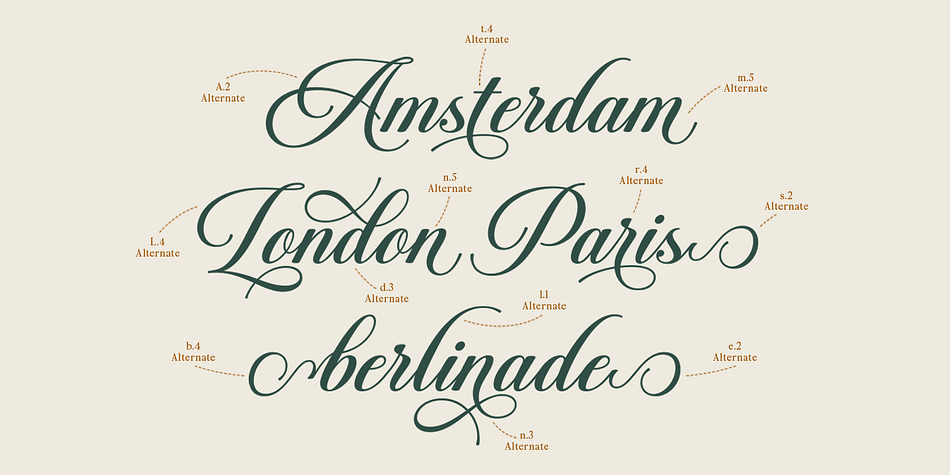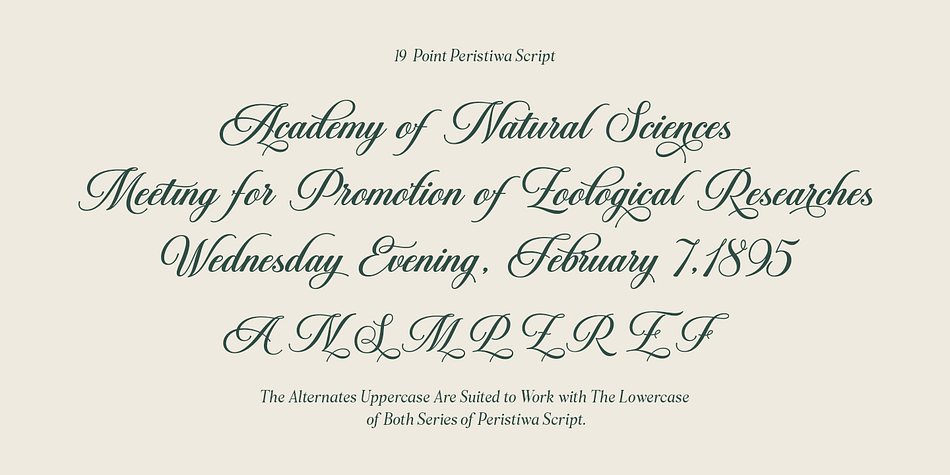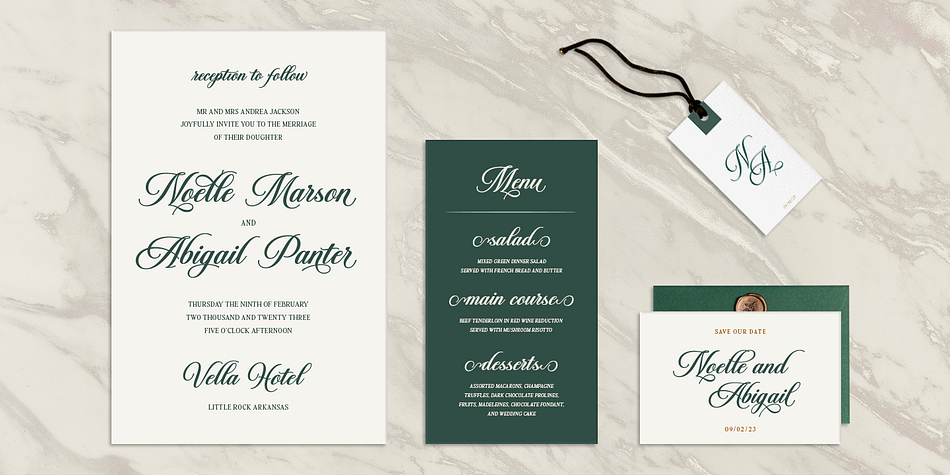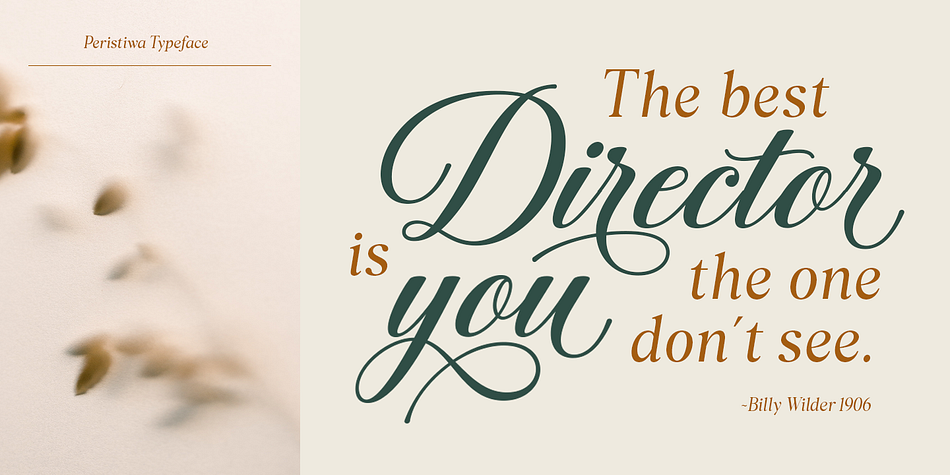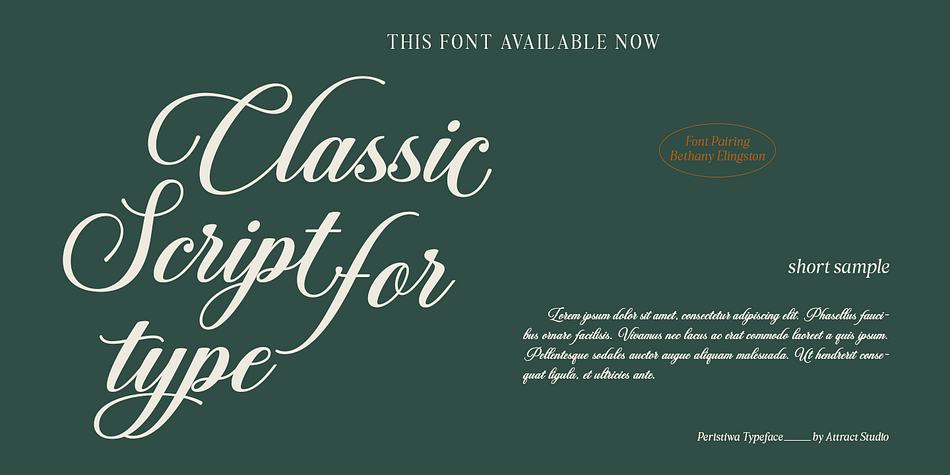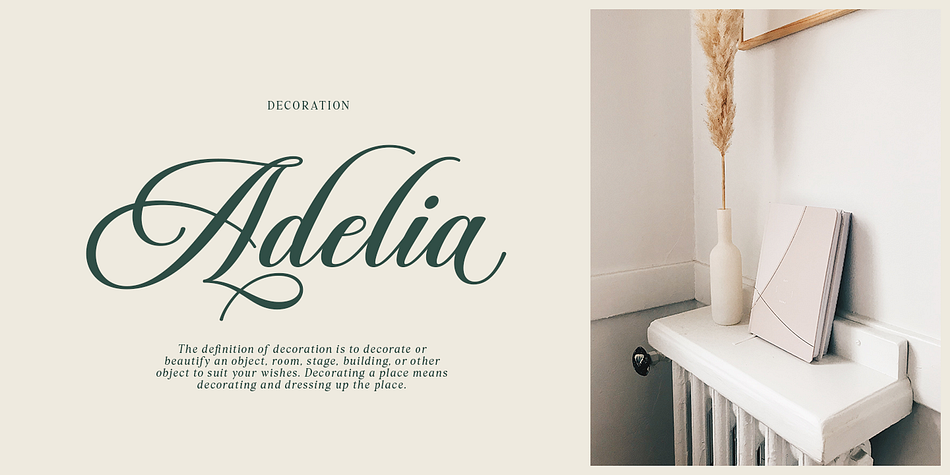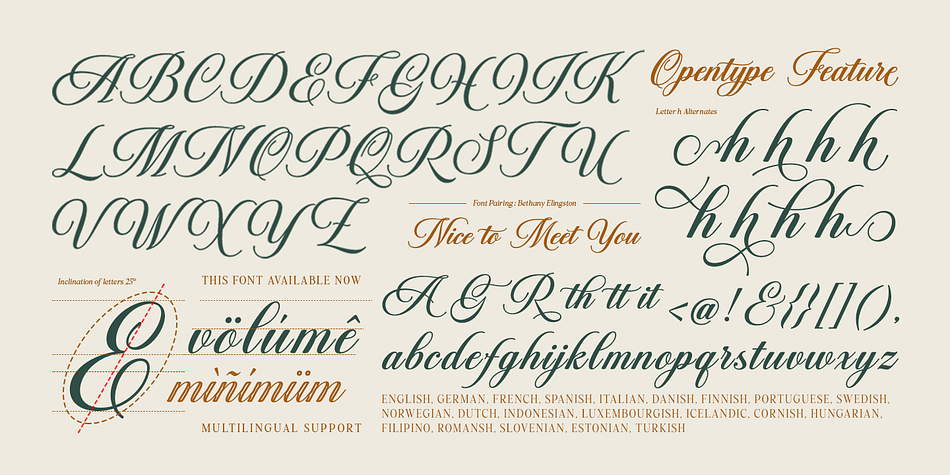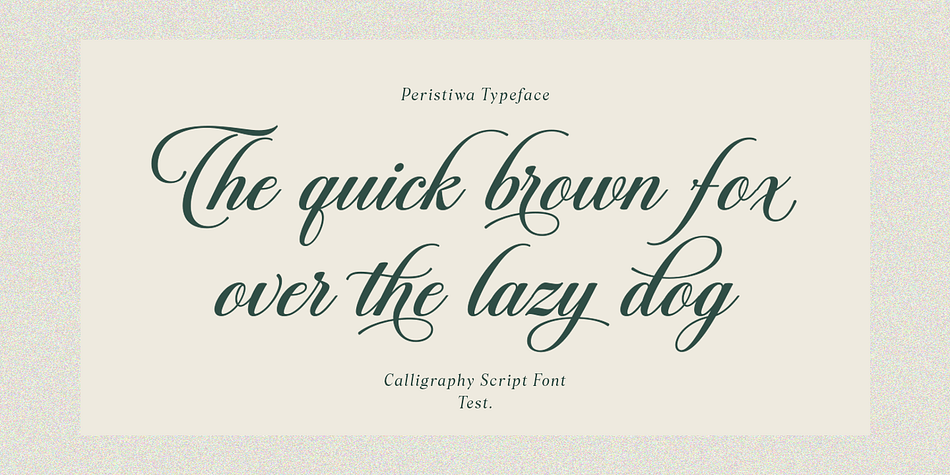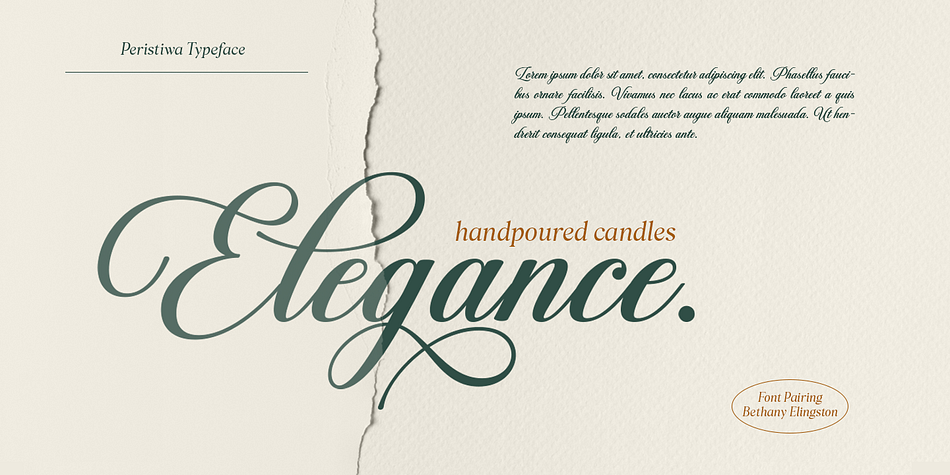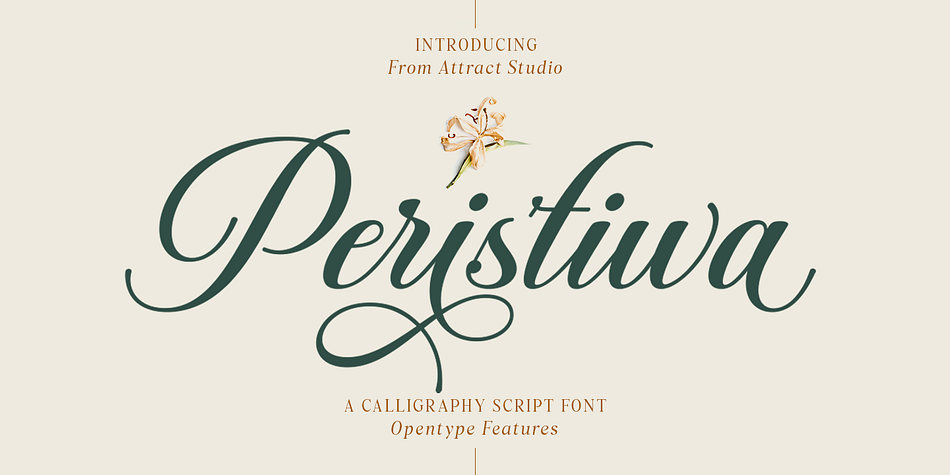
Peristiwa
Peristiwa is a modern calligraphy font family published by Attract Studio.
Peristiwa Script is an elegant, full featured vintage inspired calligraphic script font with lots of alternative characters and OpenType features. Perfectly handwritten touch with a heavy right angle is perfect for logos, wedding invitations, modern websites, greeting cards and more!